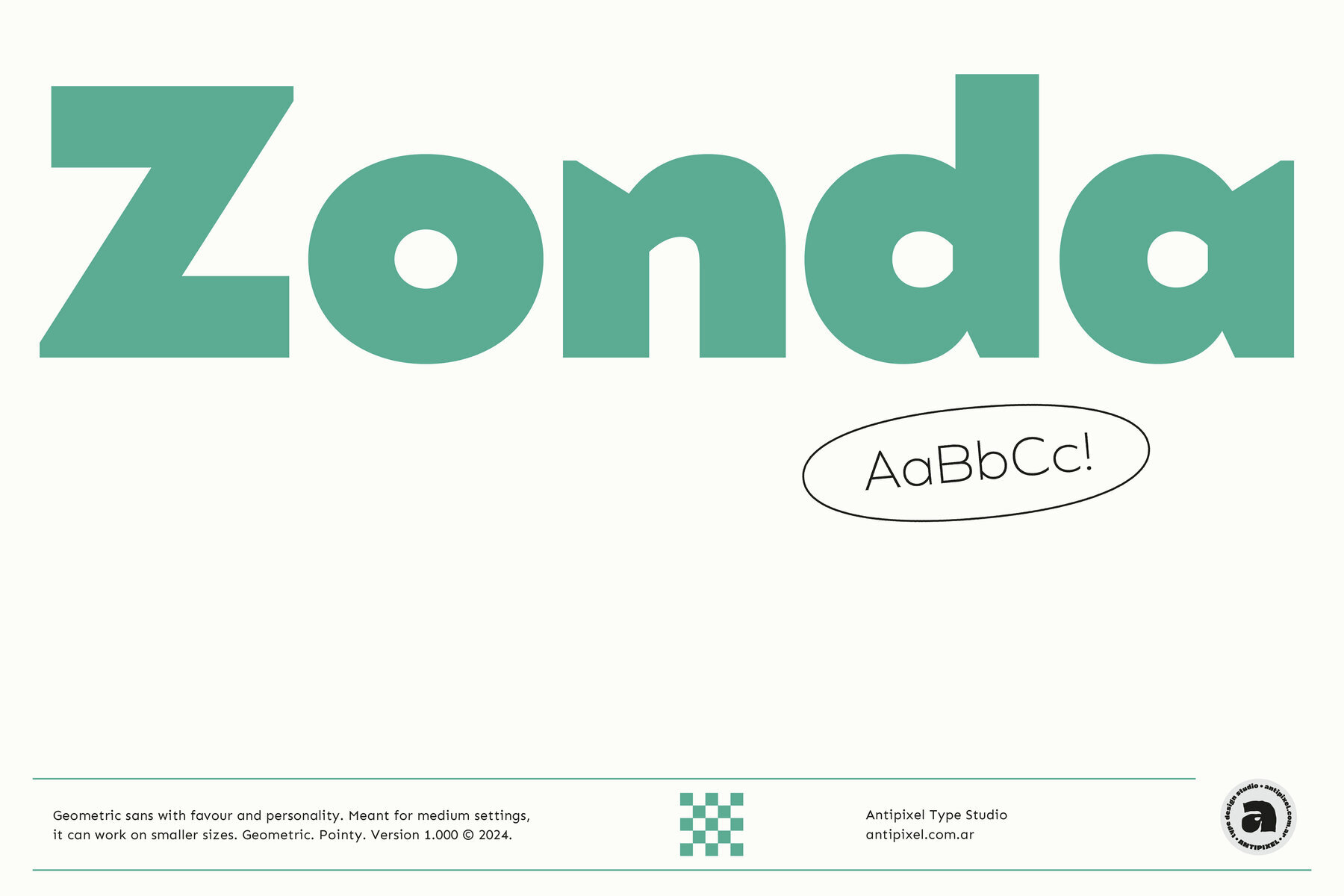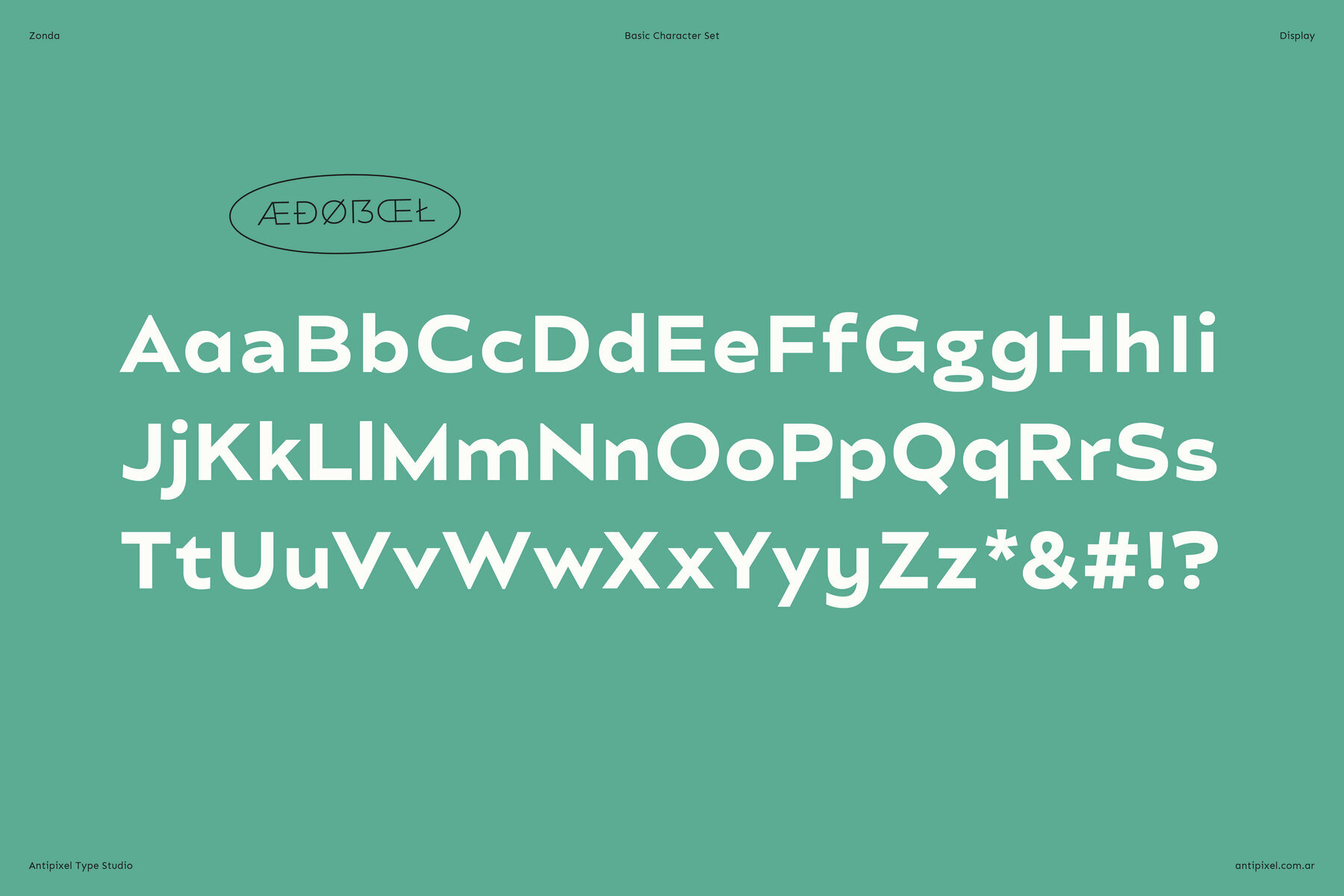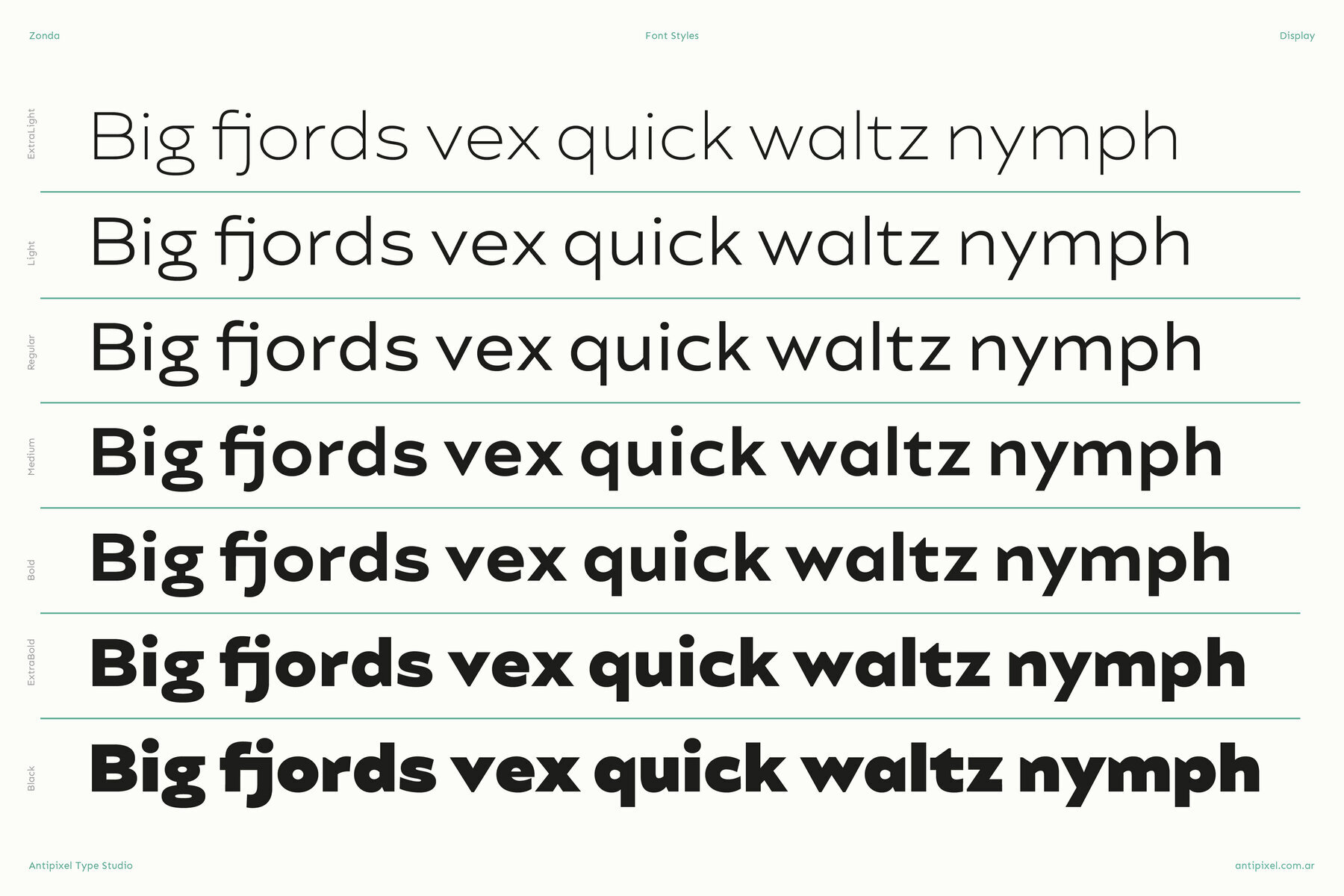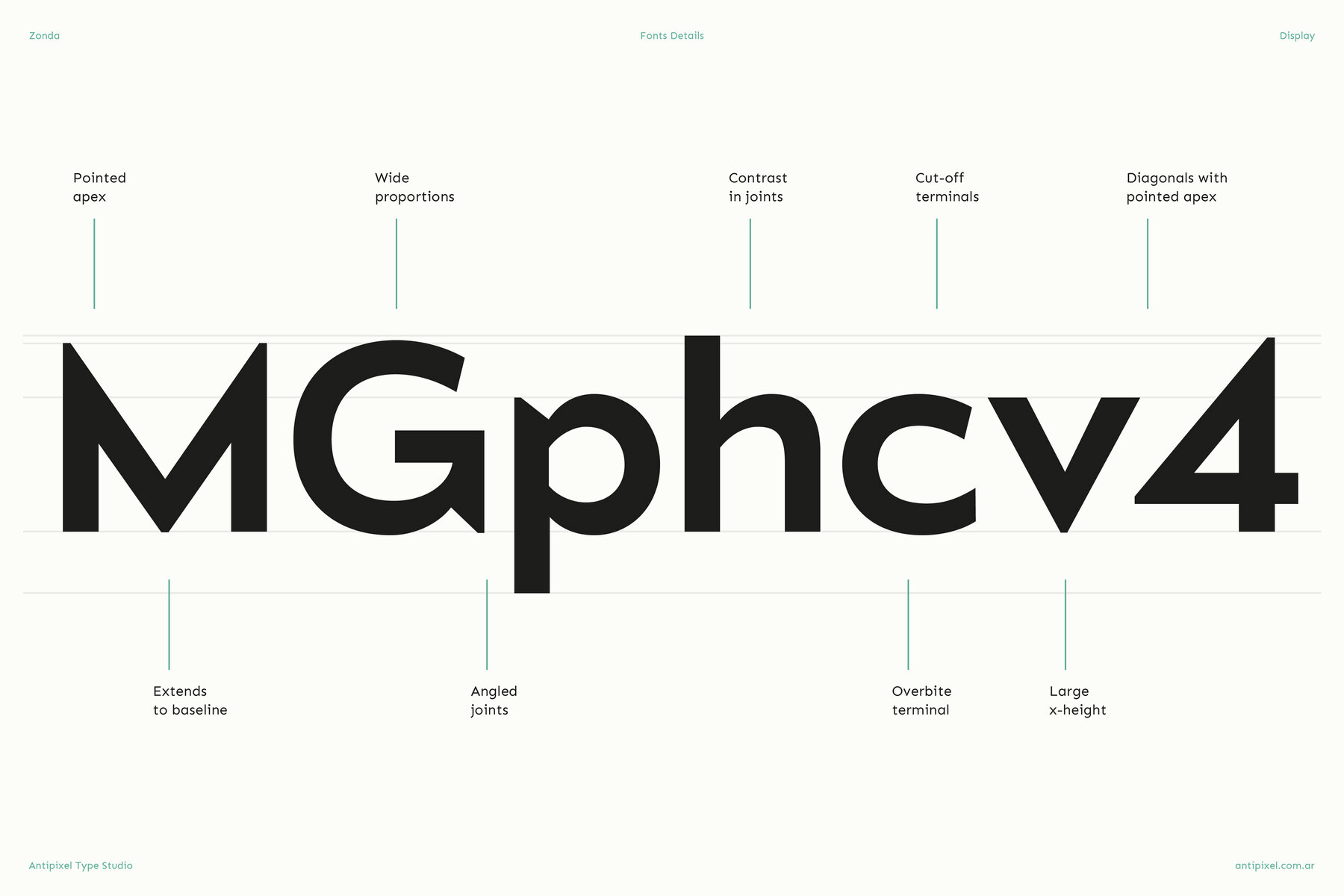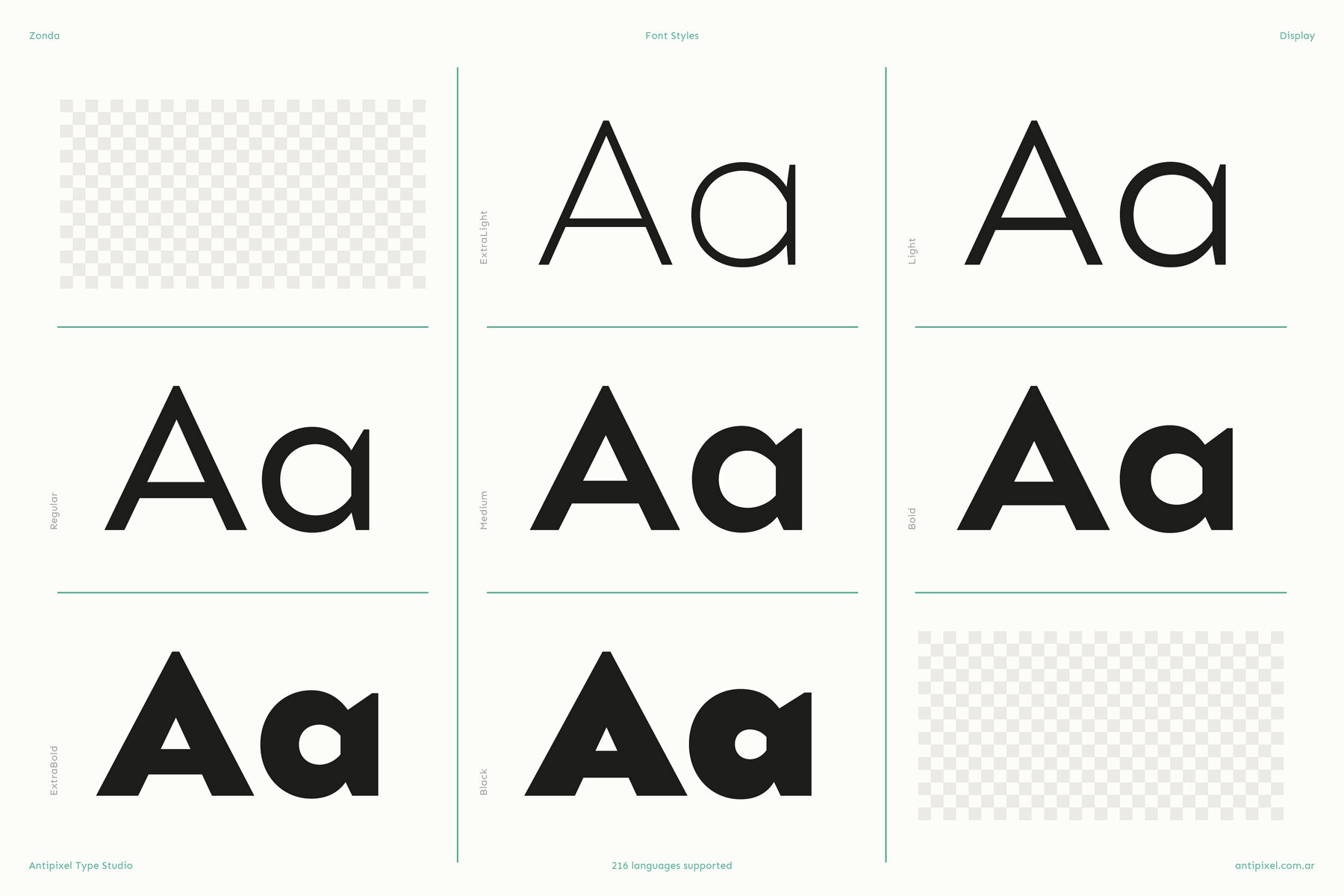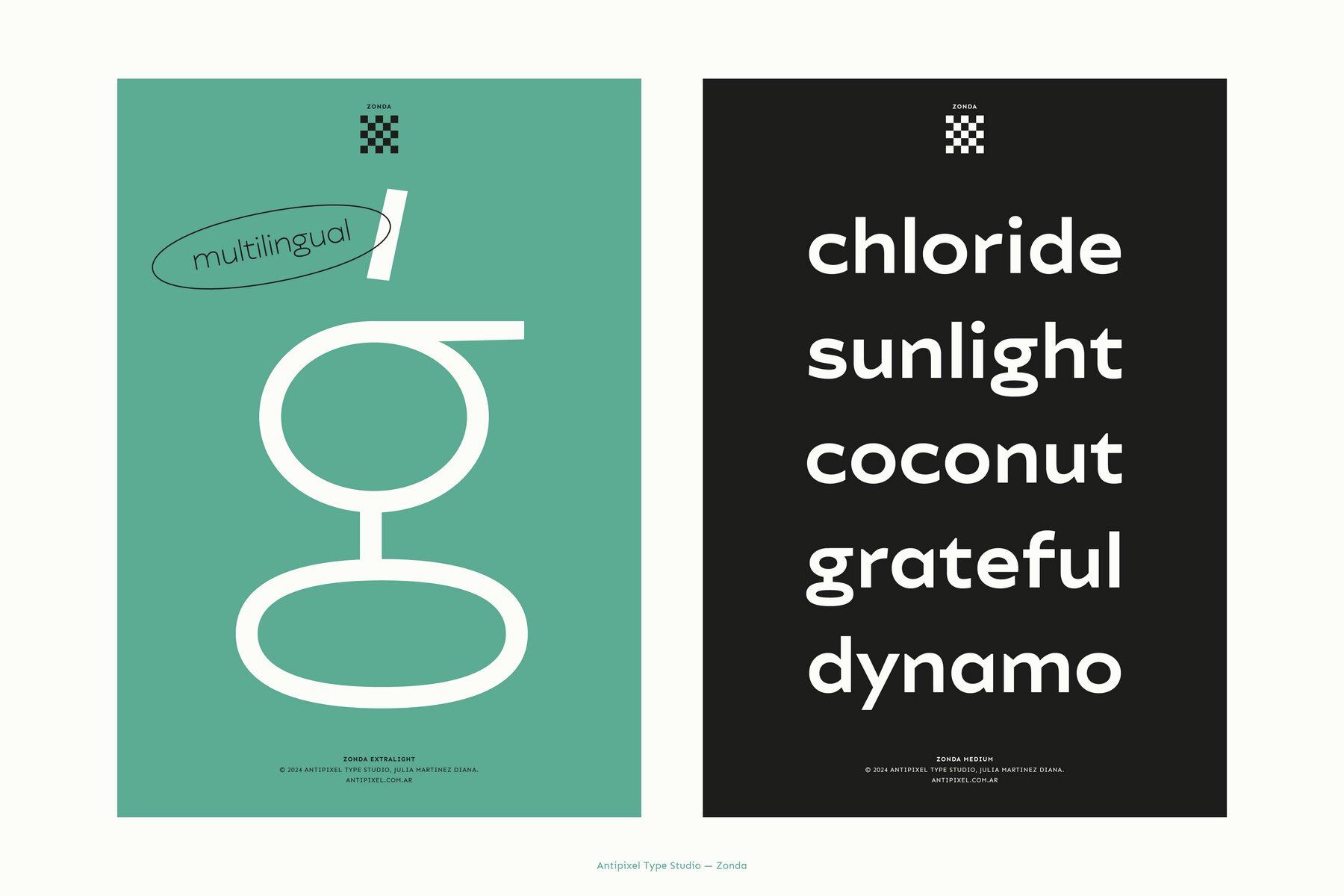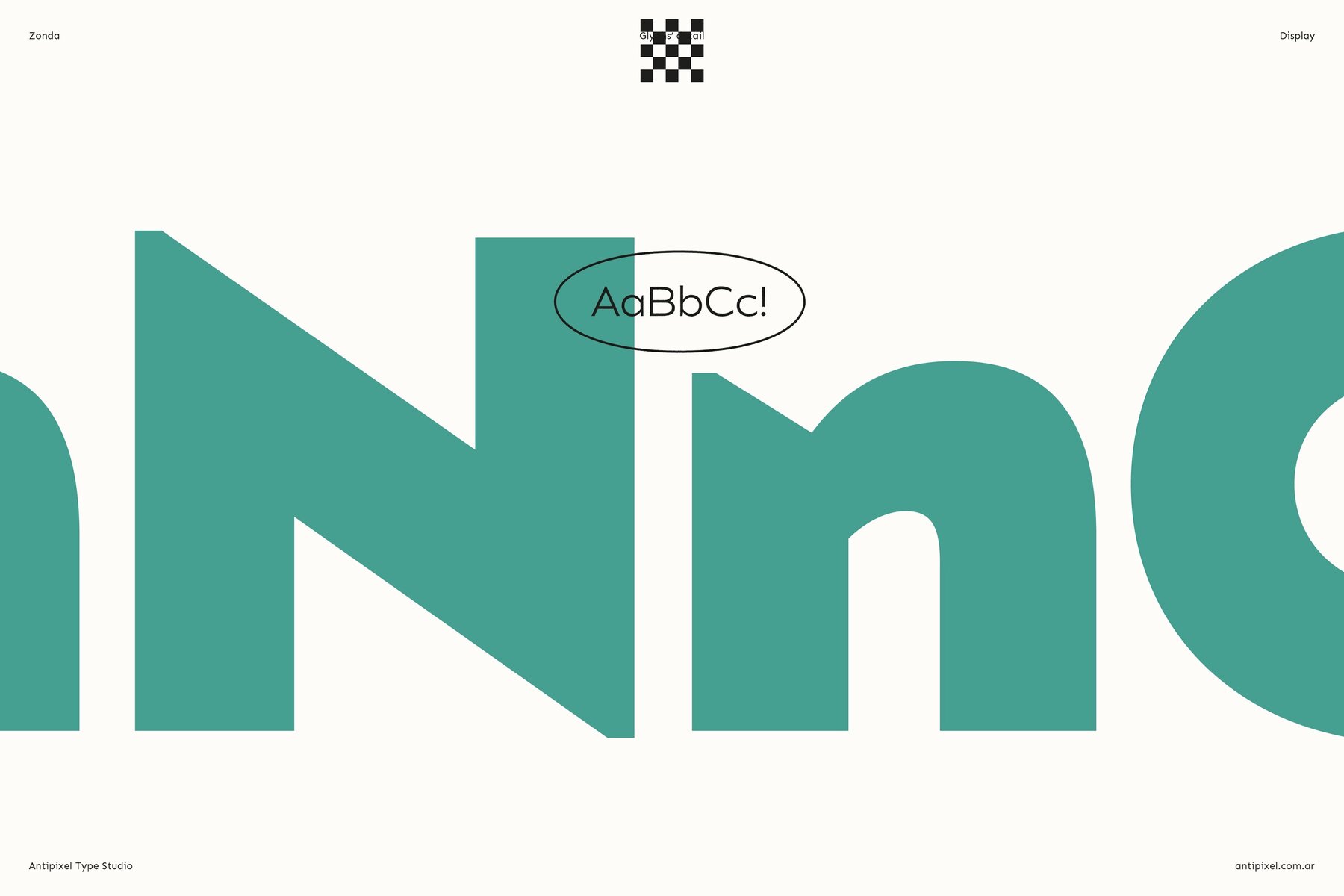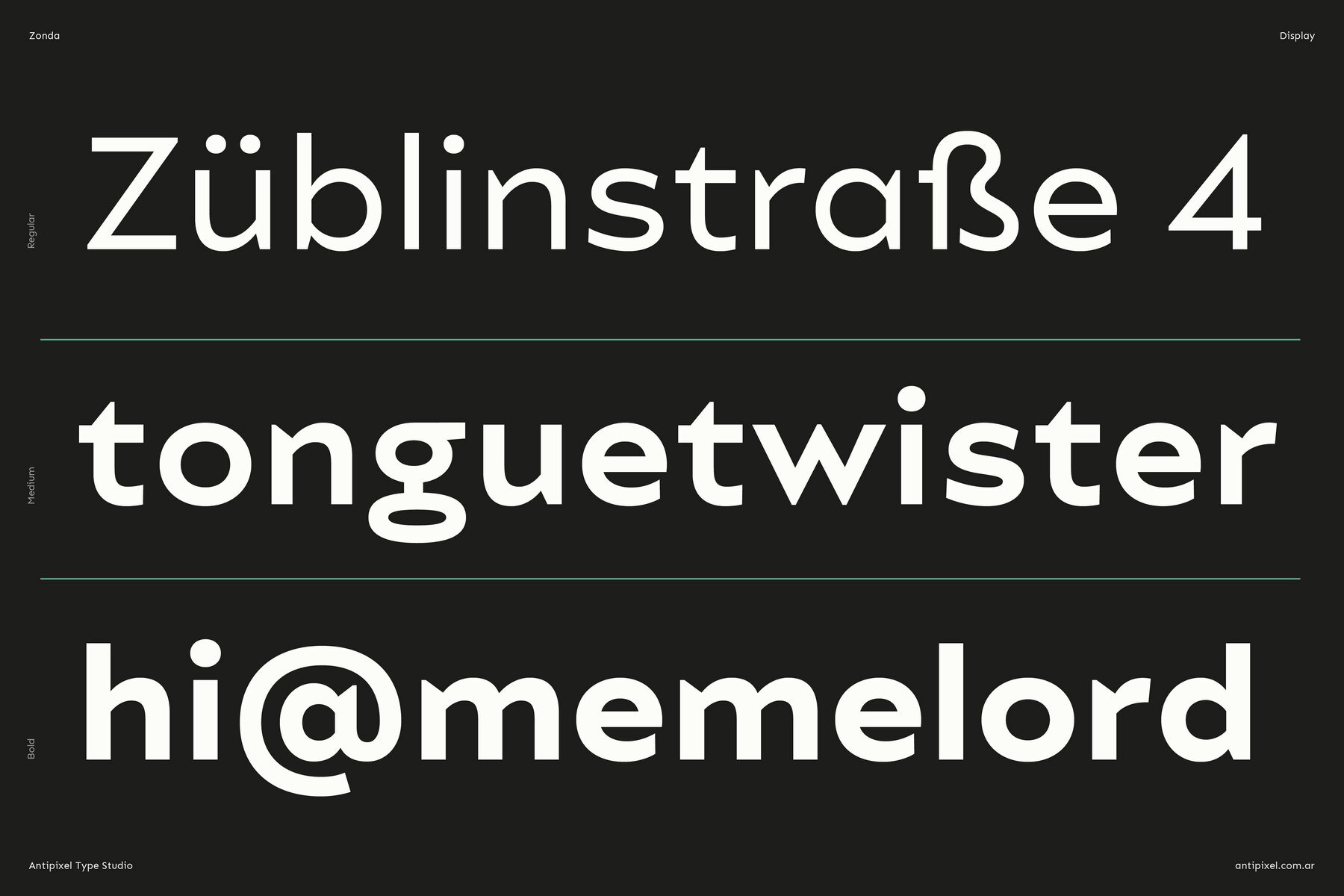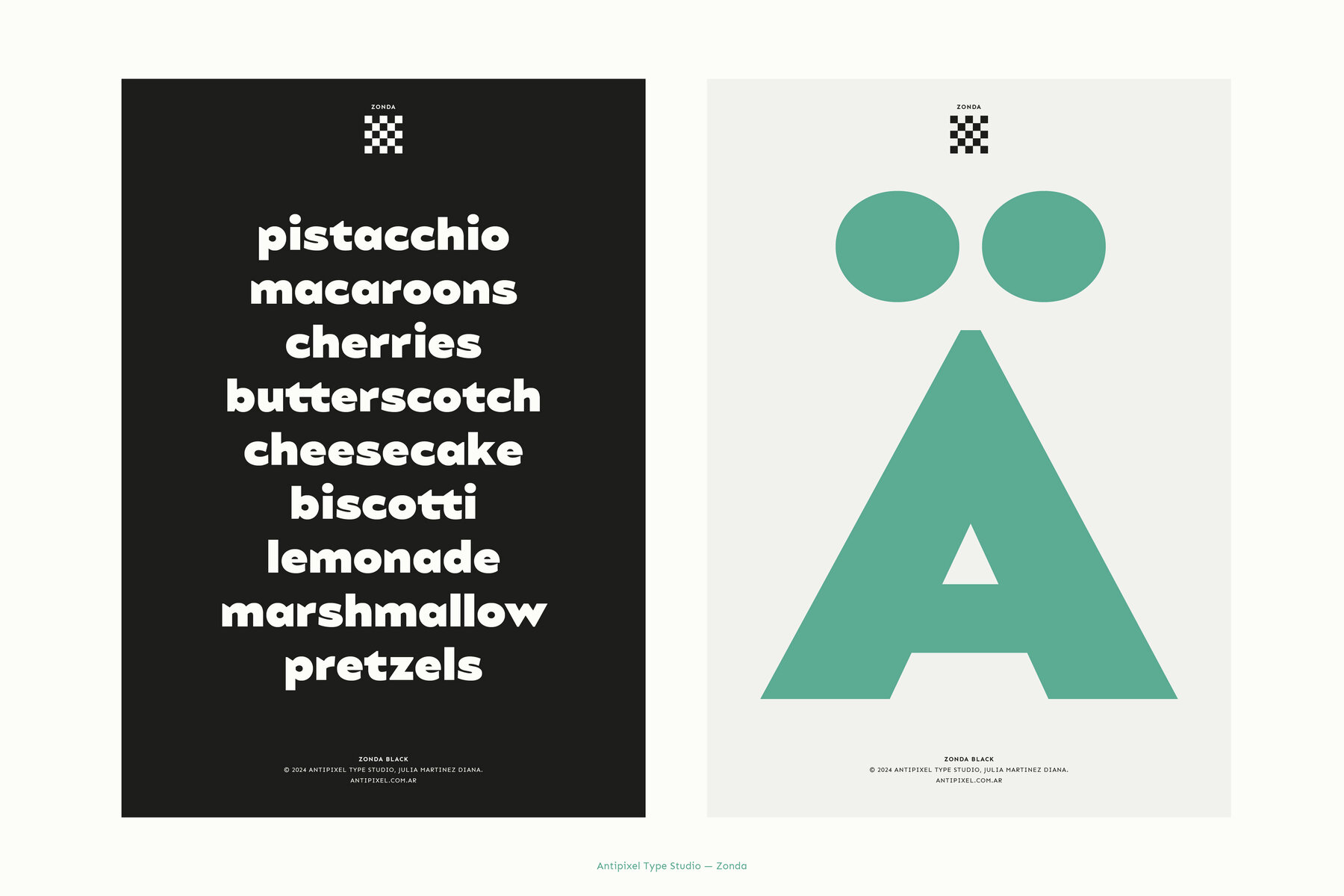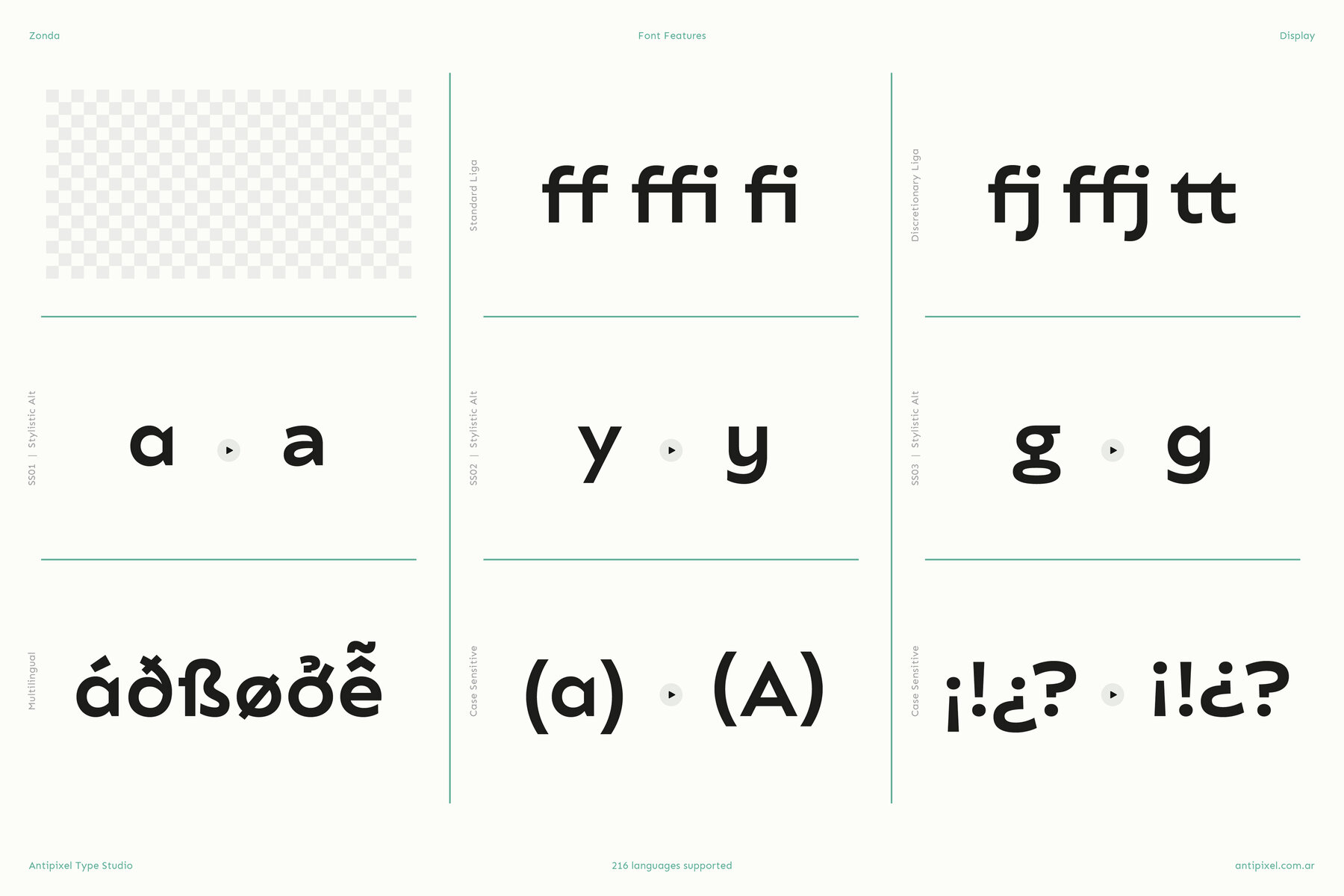
Zonda Font
Introducing Zonda, a geometric, modern, clean and classic typeface full of personality. Zonda consists of 7 weights, ranging from ExtraLight to Black, allowing versatility and emphasis in any design: ExtraLight, Light, Regular, Medium, Bold, ExtraBold, and Black. With its perfect blend of circular and triangular forms, Zonda stands out with the geometry of its sharp diagonals, squares, and fat round curves. It is solid and robust, yet delicate. The typeface’s minor weight contrast in the joints adds a touch of sophistication, enhancing readability while maintaining a bold presence, and ensuring your message is conveyed with both power and grace. Moderately wide in structure, Zonda is crafted for clarity and quality, making it ideal for headlines, big and medium settings, while also suitable for smaller sizes. Designed to make an impact across multiple languages, Zonda offers extensive glyph support, making it a perfect choice for global brands. Some of its OpenType features are Stylistic Alternates, Stylistic Sets, Case Sensitive glyphs, and more. Includes: Enjoy the font, feel free to write your feedback, send me a message or email. Thank you! —Antipixel Type Studio